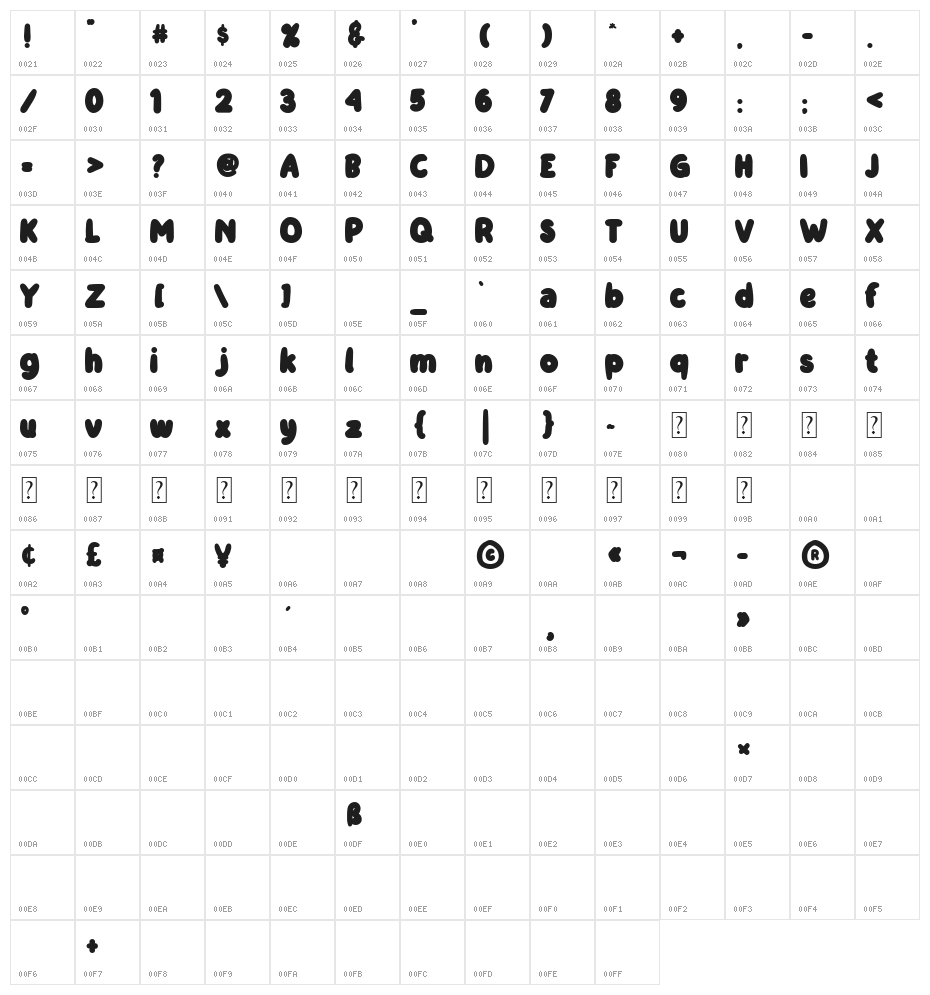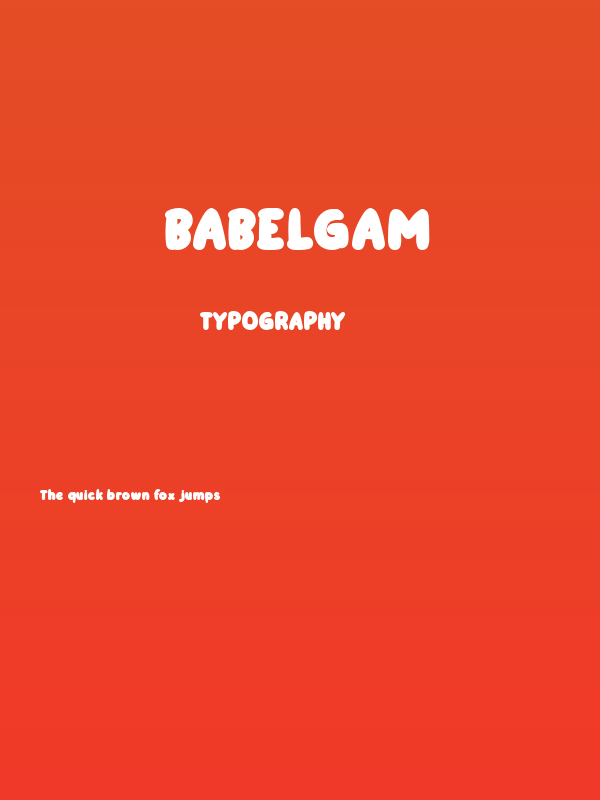
Babelgam Font
Babelgam Description
This playful and bold typeface features rounded, bubble-like characters that exude a sense of fun and whimsy. The letters are thick and uniform, with a consistent stroke width that gives them a cohesive appearance. The rounded edges and lack of sharp angles contribute to a friendly and approachable feel. The font includes both uppercase and lowercase letters, numerals, and a variety of special characters, making it versatile for different design needs. Its bold presence makes it ideal for grabbing attention, while the soft curves maintain a lighthearted tone. This font is perfect for projects that aim to convey joy, creativity, and a touch of nostalgia.
| Overall Style | Playful, Whimsical |
| Proposed Projects | Ideal for children's books, playful branding, party invitations, and creative posters. |